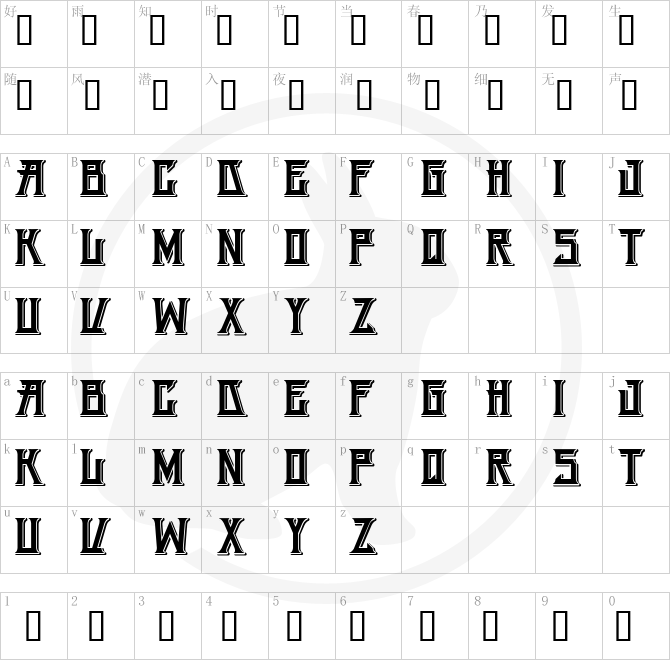
- Font Name:H74 Snake Oil
H74-Snake-Oil-Embossed.ttf is a very beautiful artistic font, H74-Snake-Oil-Embossed.ttf is widely used in the design and printing of various books and pictures,H74-Snake-Oil-Embossed.ttf has a strong visual impact,H74-Snake-Oil-Embossed.ttf is a commonly used font in newspapers, magazines and books, and is used in posters, e-commerce Poster design, store design, logo design, font design and other fields.H74-Snake-Oil-Embossed.